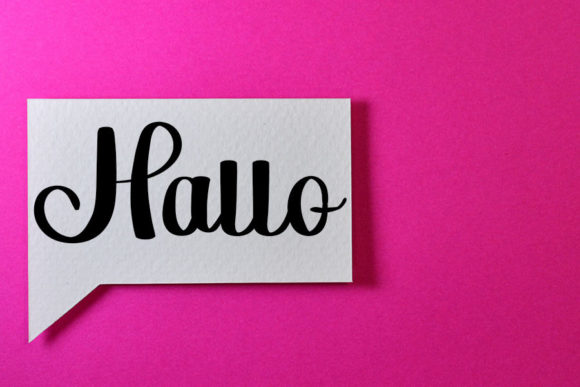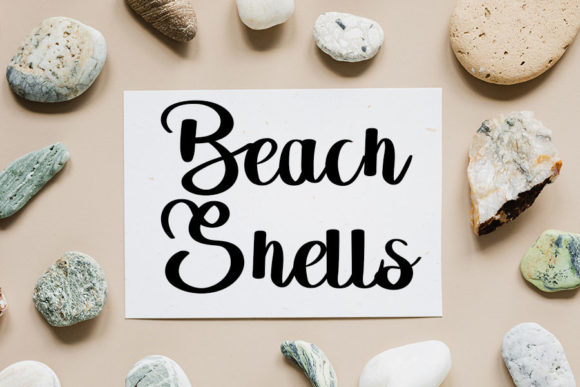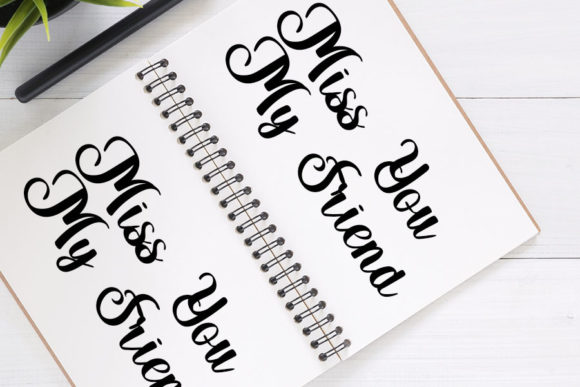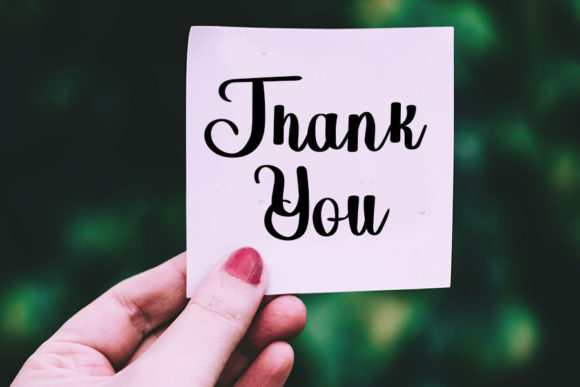
The Elegance of Garden Font: A Designer’s Delight
I still remember the time I was working on a wedding invitation project, and my client asked for a font that would make their special day feel like a fairytale. I scoured the internet, tried out countless fonts, but nothing seemed quite right. That was until I stumbled upon Garden Font. Its elegant, cursive strokes and beautiful ligatures instantly captured the essence of the occasion. I knew right then and there that I had found the perfect fit. In this article, I’ll share with you why Garden Font has become a staple in my design toolkit and how you can make the most of its stunning features.
A Personal Review of Garden Font
- ✨ Elegant and stylish script font perfect for wedding invitations, thank you cards, and greeting cards
- ✅ Beautifully crafted ligatures and swashes that add a touch of sophistication to any design
- 🌟 Highly versatile and can be used for a variety of design projects, from logos to business cards
- 👍 Easy to read and understand, even in smaller font sizes
While Garden Font is an exceptional font, there are a few things to keep in mind:
- ⚠️ Some of the more intricate swashes and ligatures may not display properly in certain software or platforms
- 🤔 The font’s elegance may not be suitable for more playful or casual design projects
- Experiment with the font’s OpenType features, such as ligatures and swashes, to add a touch of elegance to your design
- Experiment with the font’s glyphs, stylistic alternates, and swashes to create a unique design
- Experiment with the font’s ligatures and swashes to add a touch of elegance to your document
The Story Behind Garden Font
While the true story behind Garden Font remains a mystery, it’s believed to have been designed by a team of typographers who wanted to create a font that would evoke the elegance and beauty of a lush garden. With its intricate strokes and beautiful ligatures, Garden Font is a true masterpiece that has captured the hearts of designers around the world.
Q: What is Garden Font?
A: Garden Font is a stylish and elegant script font perfect for designs that need a touch of sophistication and elegance.
Q: Is Garden Font suitable for body text?
A: While Garden Font is beautiful, it’s not recommended for body text due to its elegant and cursive nature. It’s best suited for headings, titles, and short paragraphs.